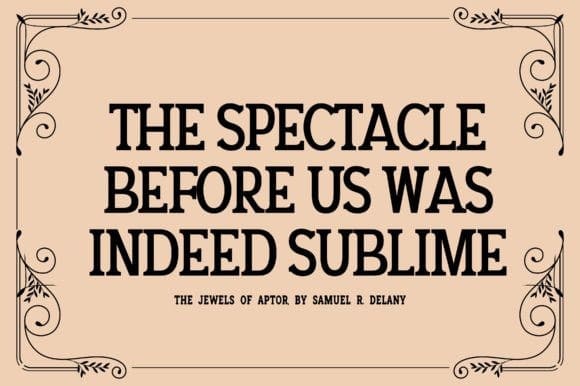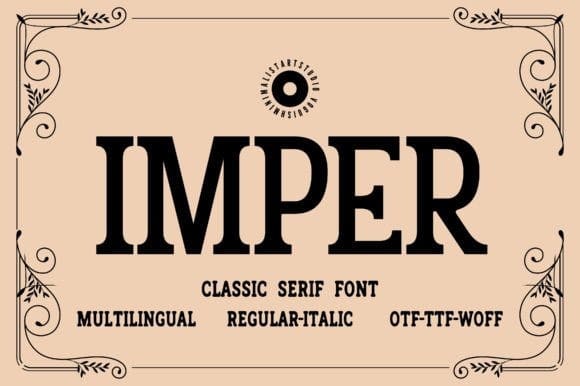
Imper Font
Imper Font – the perfect serif font for those seeking a touch of sophistication and elegance. With its classic design, Imper exudes an air of refinement that is sure to make your text stand out.
But Imper isn’t just about style – it’s also highly functional, with over 604 glyphs to choose from. This means you have a wide range of options to make your text look exactly how you want it to. Whether you’re creating a logo, designing a website, or crafting a marketing brochure, Imper has you covered.
What’s more, Imper has multi-lingual support, which means you can use it to display text in a variety of languages. Whether you’re writing in English, Spanish, French, or any other language, Imper will ensure your text looks professional and polished.
So why choose Imper? Simply put, it’s the perfect balance of style and functionality. With its classic design and multi-lingual support, Imper is the perfect choice for anyone looking to elevate their text to the next level. Whether you’re a graphic designer, marketing professional, or just someone who appreciates good design, Imper is a font you won’t want to miss.